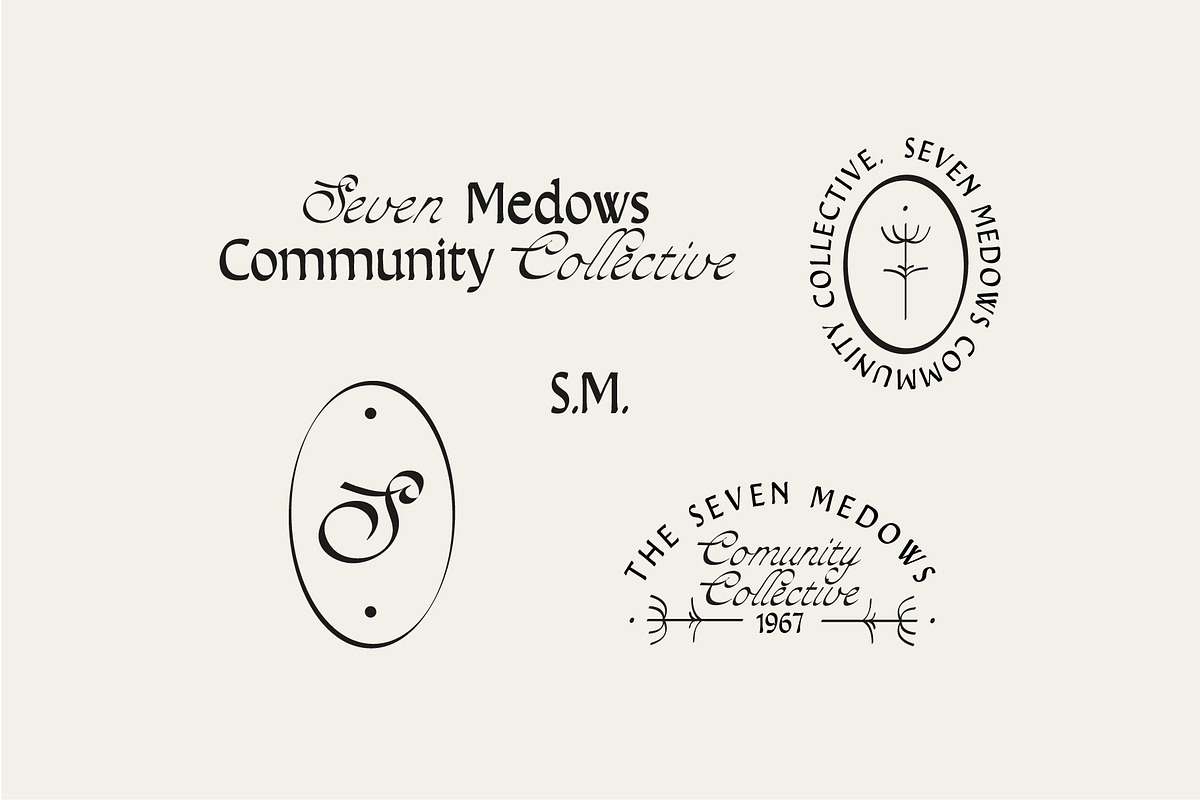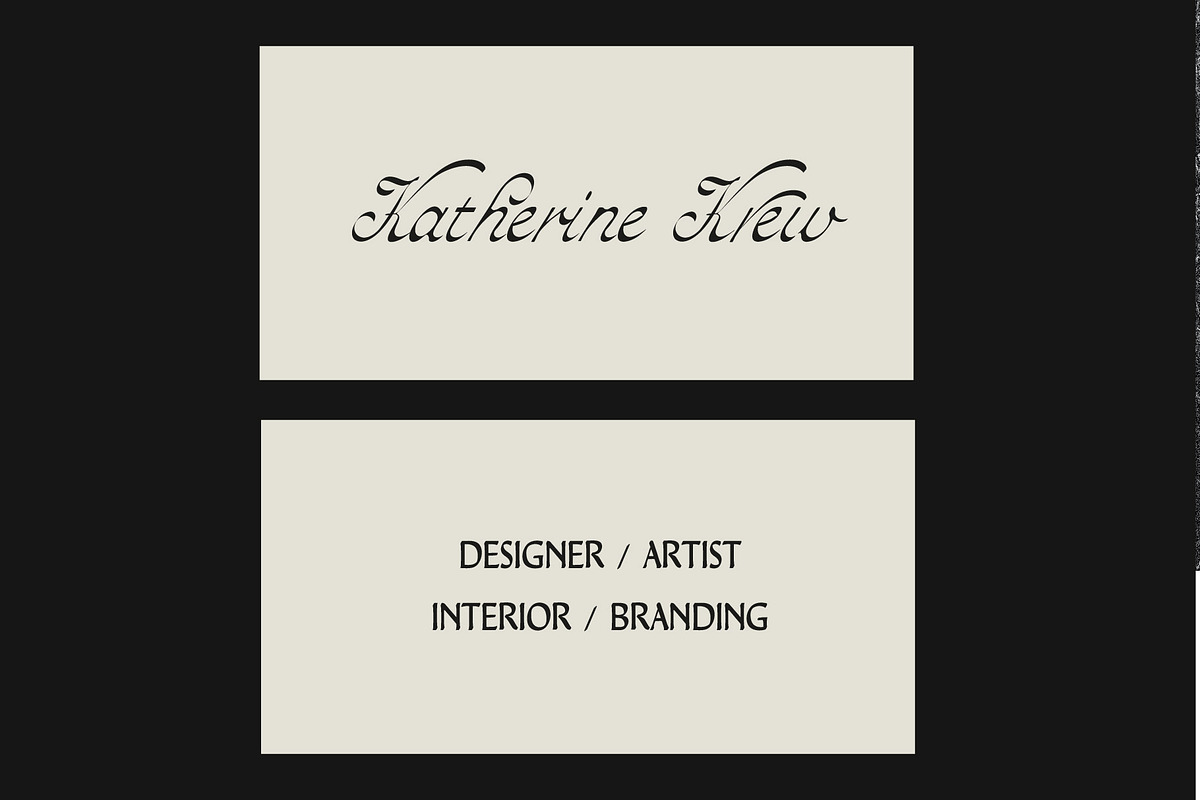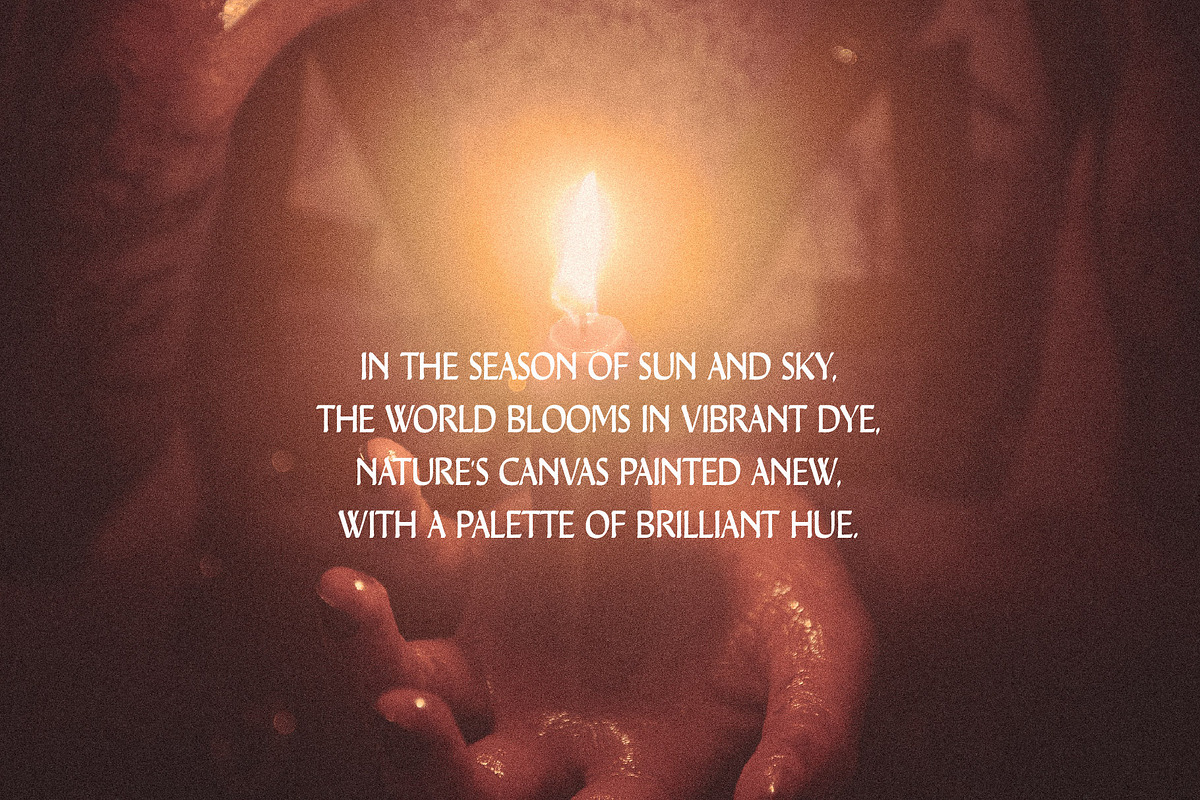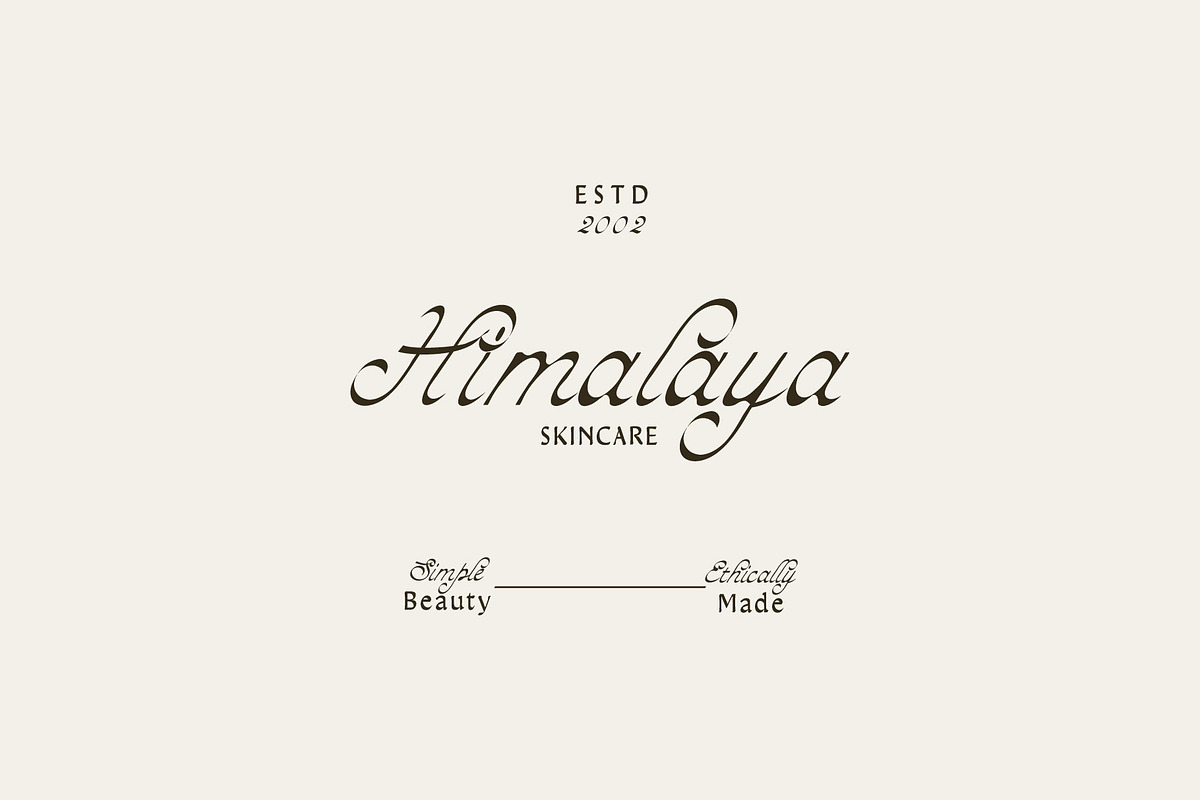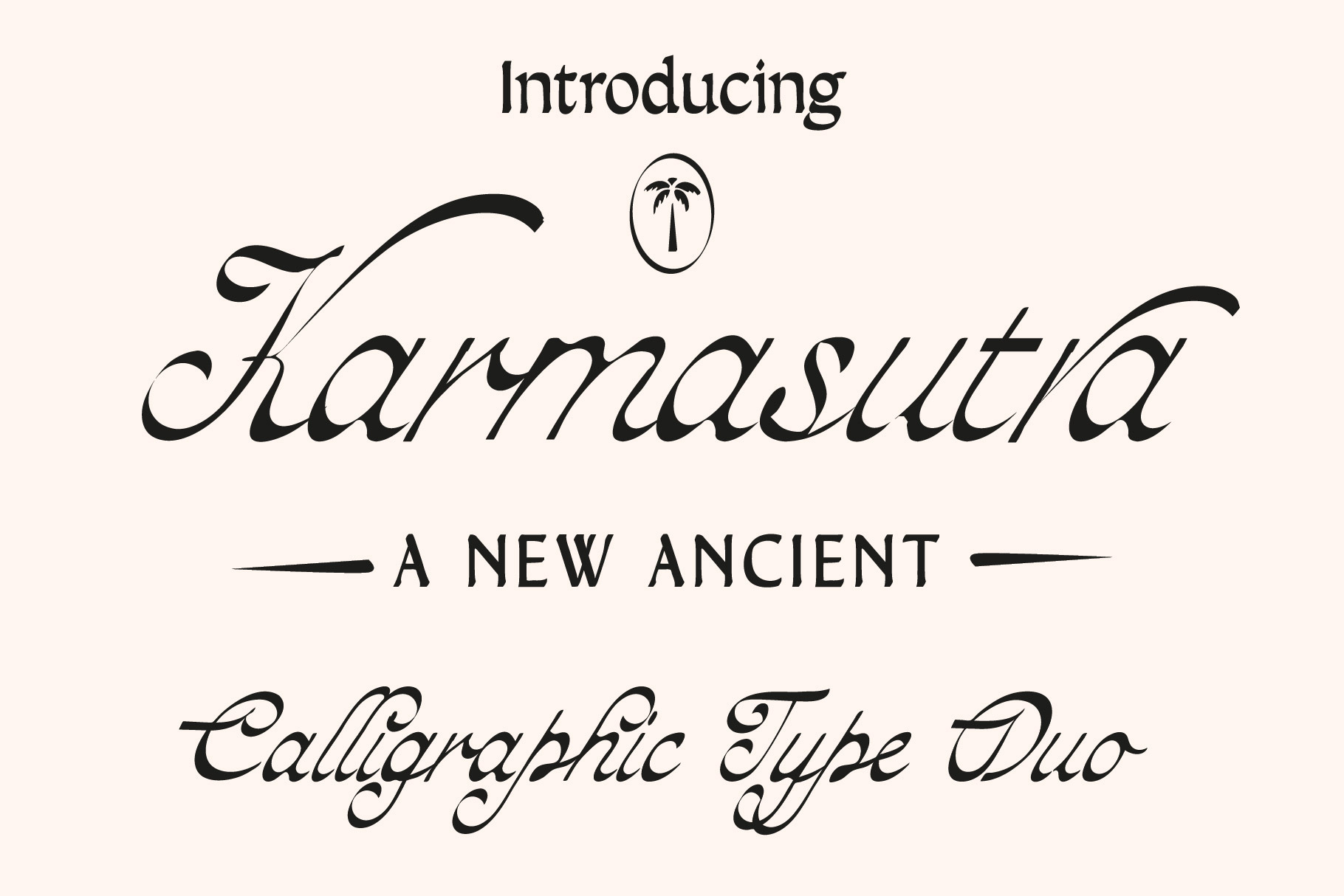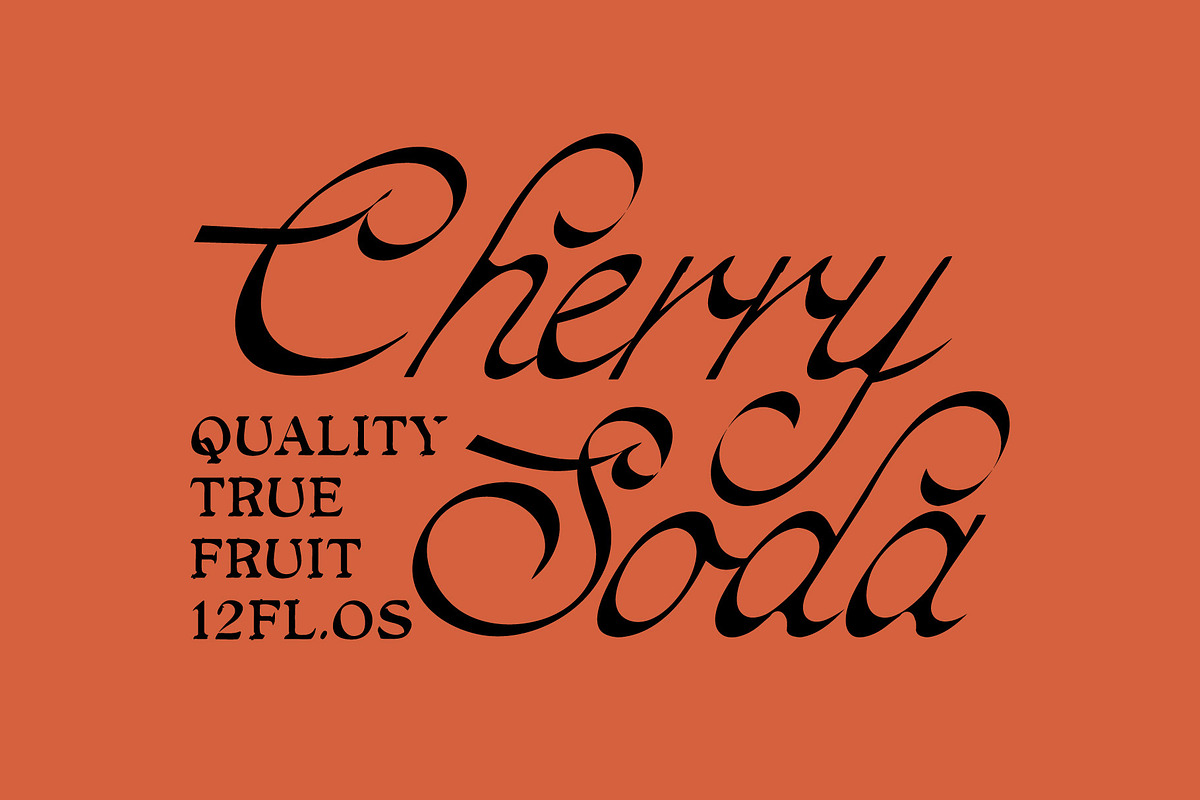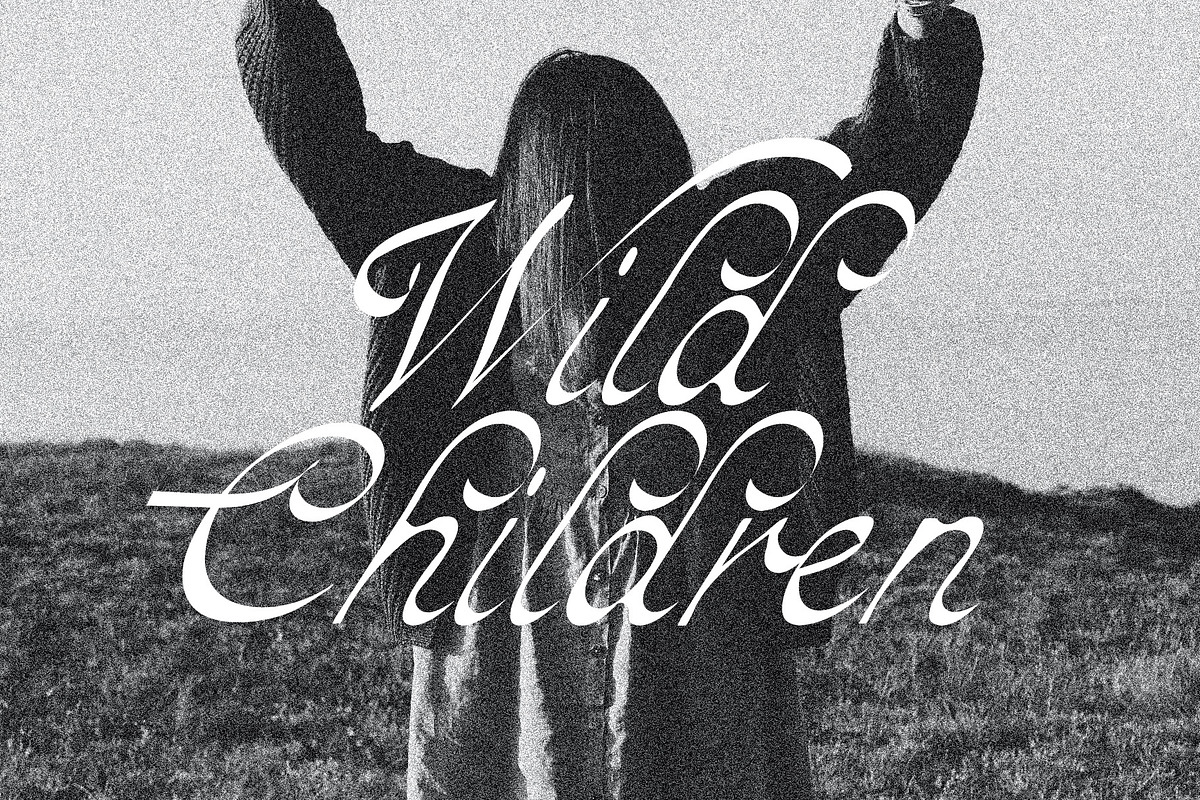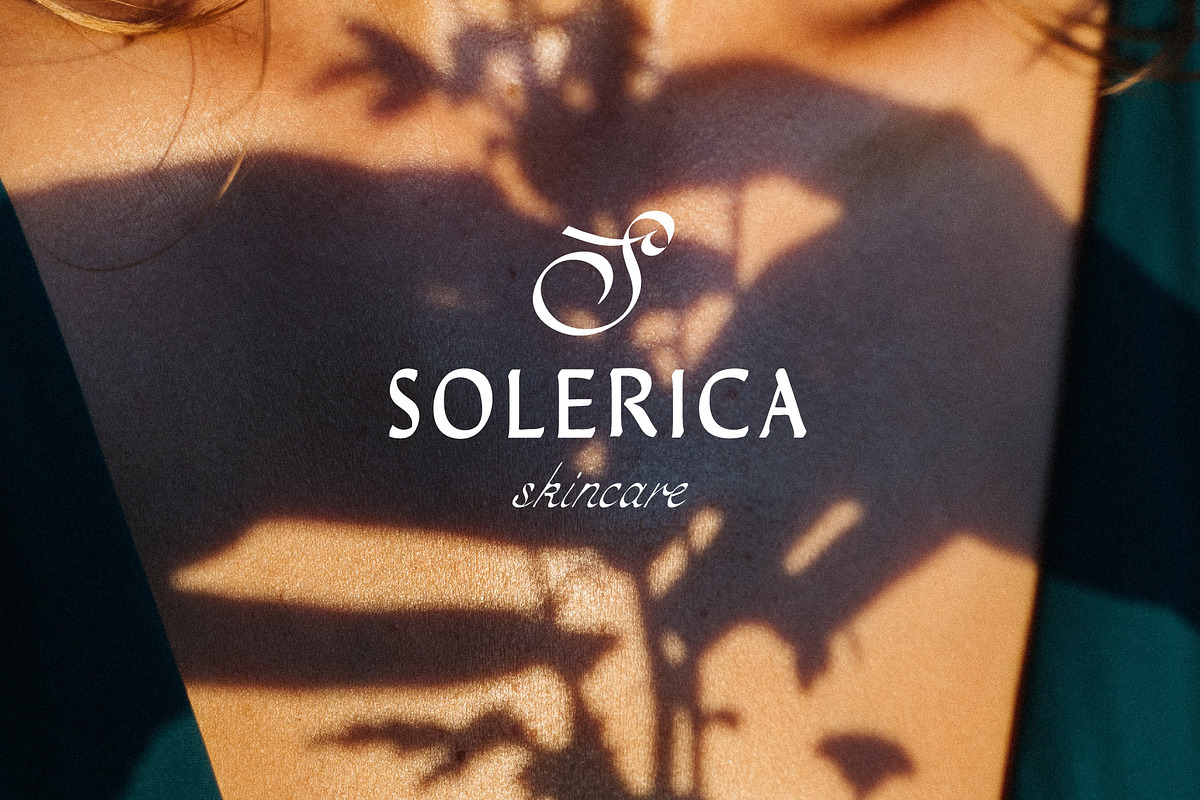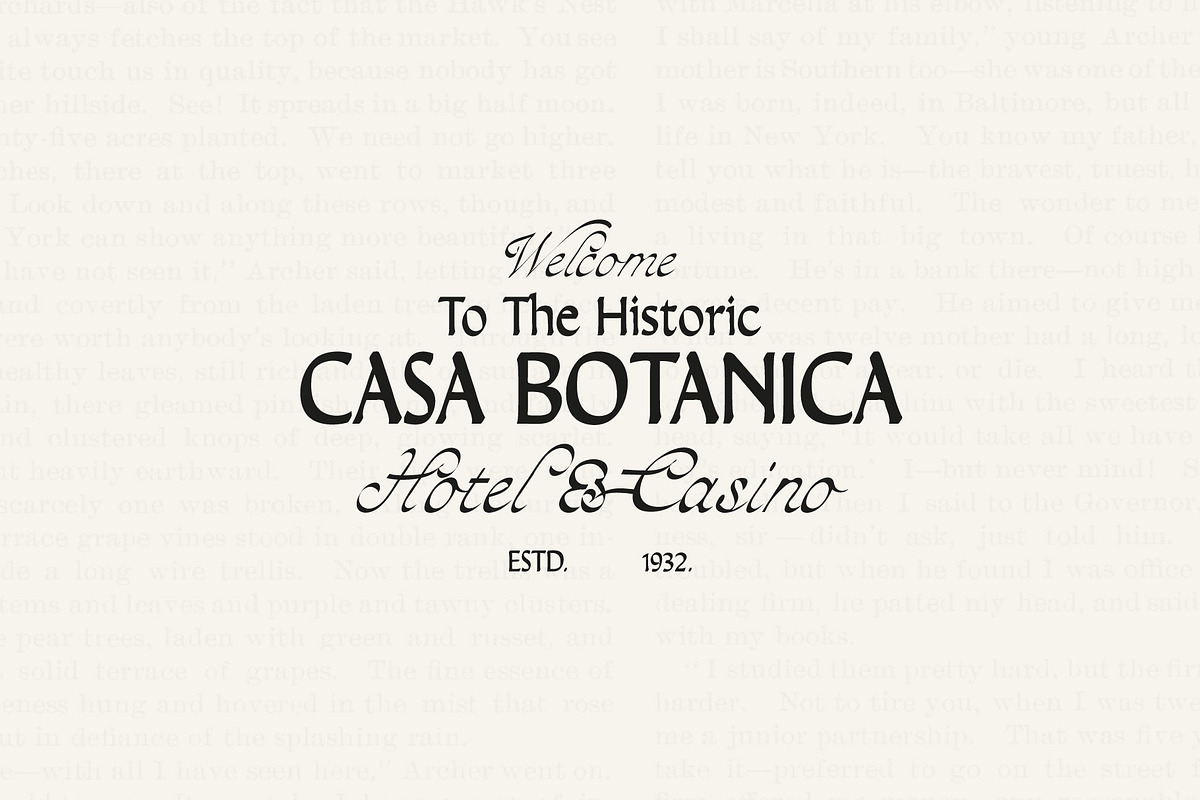
Karmasutra Font duo
Karmasutra is a rough font duo with curves in all sorts of exotic positions. The script contrasts the regular font creating a complimentary couple. Add something sensual to your font library!
-Non English glyphs included:
ą á â à ä å ã æ ć ç ę é ê è ë í î ì ï ı ł ñ ń ó ô ò ö õ ø œ ś š ß ú û ù ü ý ÿ ž ź ż.Ą Á  À Ä Å Ã Æ Ć Ç Ę É Ê È Ë Í Î Ì Ï Ł Ń Ñ Ó Ô Ò Ö Õ Ø Œ Ś Š Ú Û Ù Ü Ý Ÿ Ź Ż